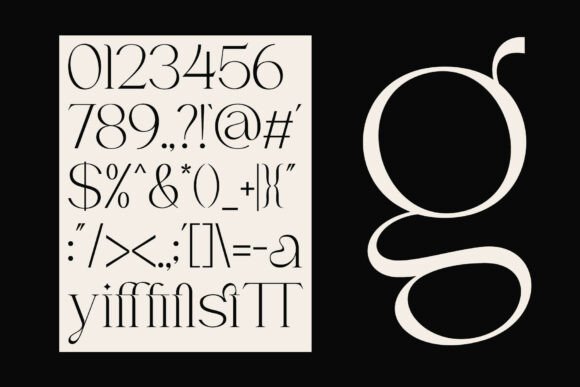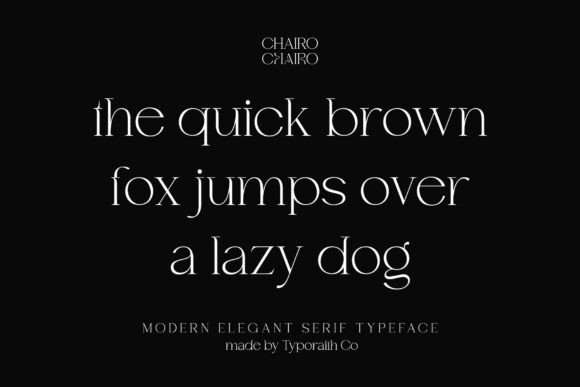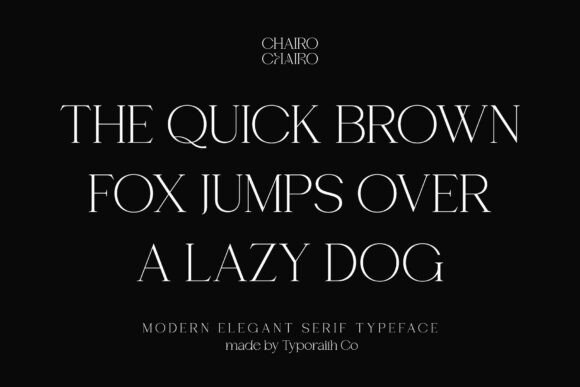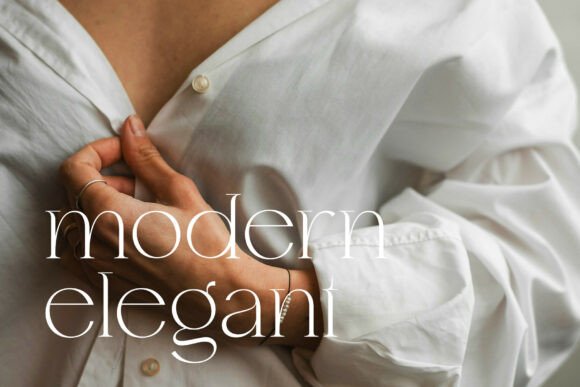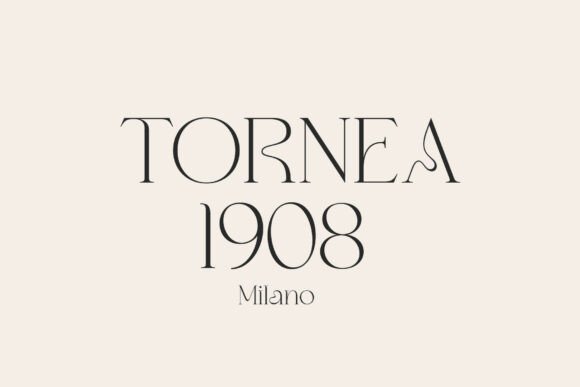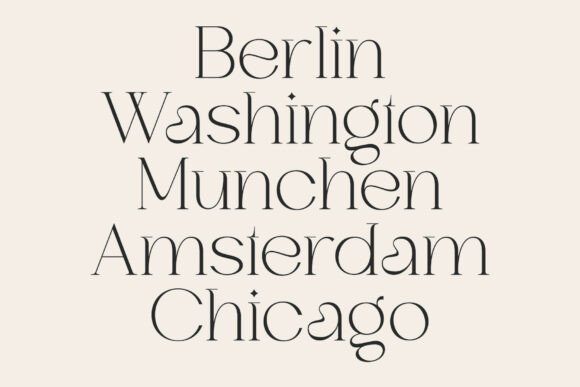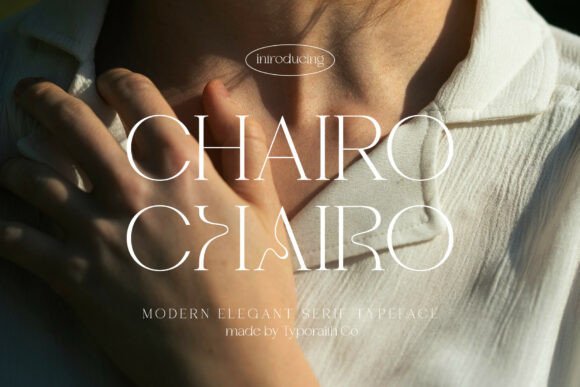
Introducing Chairo Font: Elevate Your Designs with Luxury and Sophistication
In the world of typography, a well-crafted font can make all the difference in creating a lasting impression. For designers and crafters seeking a premium and contemporary look, Chairo Font is an exceptional choice. This modern elegant serif typeface is meticulously designed with refined details, graceful curves, and distinctive stylistic forms that exude luxury and sophistication.
The Art of Elegance: Chairo’s Design Philosophy
Chairo Font is the epitome of refined typography, boasting a unique blend of classic and modern elements. Each letter is carefully crafted to bring a high-end aesthetic, making it perfect for designers who strive for perfection. The font’s elegant serif design, coupled with its graceful curves, creates a truly luxurious visual character that is sure to elevate any project.
Key Features of Chairo Font
- Modern Elegant Serif Typeface: Chairo Font features a sleek and sophisticated serif design, perfect for creating a lasting impression.
- Refined Details: Every letter is meticulously crafted with attention to detail, ensuring a premium look and feel.
- Graceful Curves: Chairo’s curves are smooth and elegant, adding a touch of sophistication to any design.
- Distinctive Stylistic Forms: The font’s unique stylistic forms set it apart from other serif typefaces, making it a standout choice for designers.
Why Choose Chairo Font?
For designers and crafters seeking a font that embodies luxury and sophistication, Chairo Font is an excellent choice. Its versatility makes it suitable for a wide range of projects, from:
- Branding and Logo Design: Create a lasting impression with Chairo’s elegant and refined design.
- Print and Digital Media: Use Chairo Font in brochures, magazines, and digital publications to add a touch of sophistication.
- Web Design: Elevate your website’s typography with Chairo’s modern and elegant design.
- Packaging and Advertising: Make a statement with Chairo Font’s luxurious and high-end aesthetic.
Tips for Using Chairo Font Effectively
To get the most out of Chairo Font, consider the following tips:
- Pair with Neutral Backgrounds: Allow Chairo Font to take center stage by pairing it with neutral backgrounds.
- Experiment with Font Sizes: Play with different font sizes to create visual hierarchy and emphasize key elements.
- Use in Combination with Other Fonts: Combine Chairo Font with other fonts to create a unique and visually appealing typography.
| Font Name | Chairo Font |
| Author | Typoraith Co |
Chairo Font is a game-changer for designers and crafters seeking a luxurious and sophisticated typography solution. Its modern elegant serif design, refined details, and distinctive stylistic forms make it the perfect choice for those who want to elevate their designs. With its versatility and high-end aesthetic, Chairo Font is sure to become a staple in any designer’s toolkit.